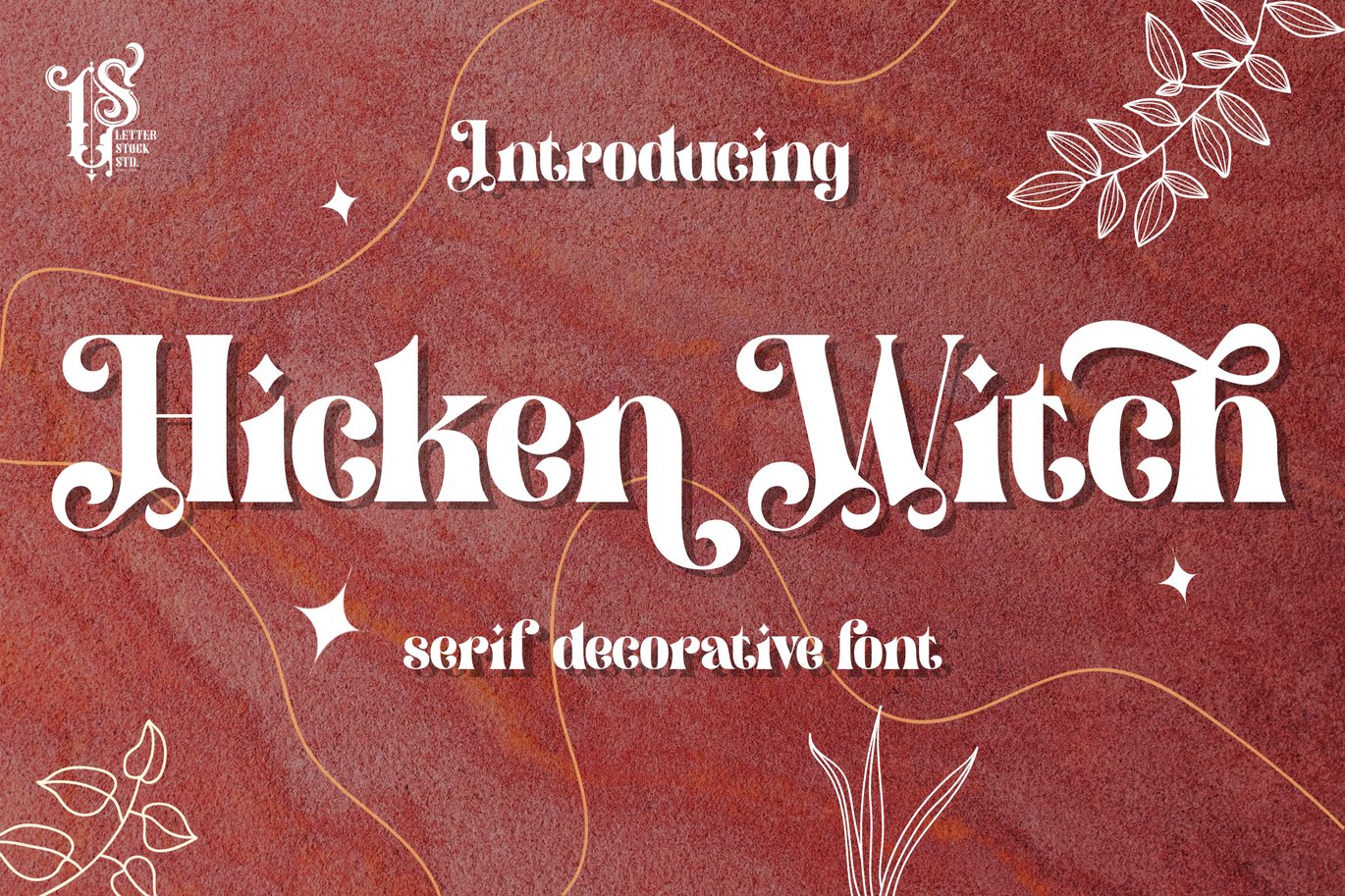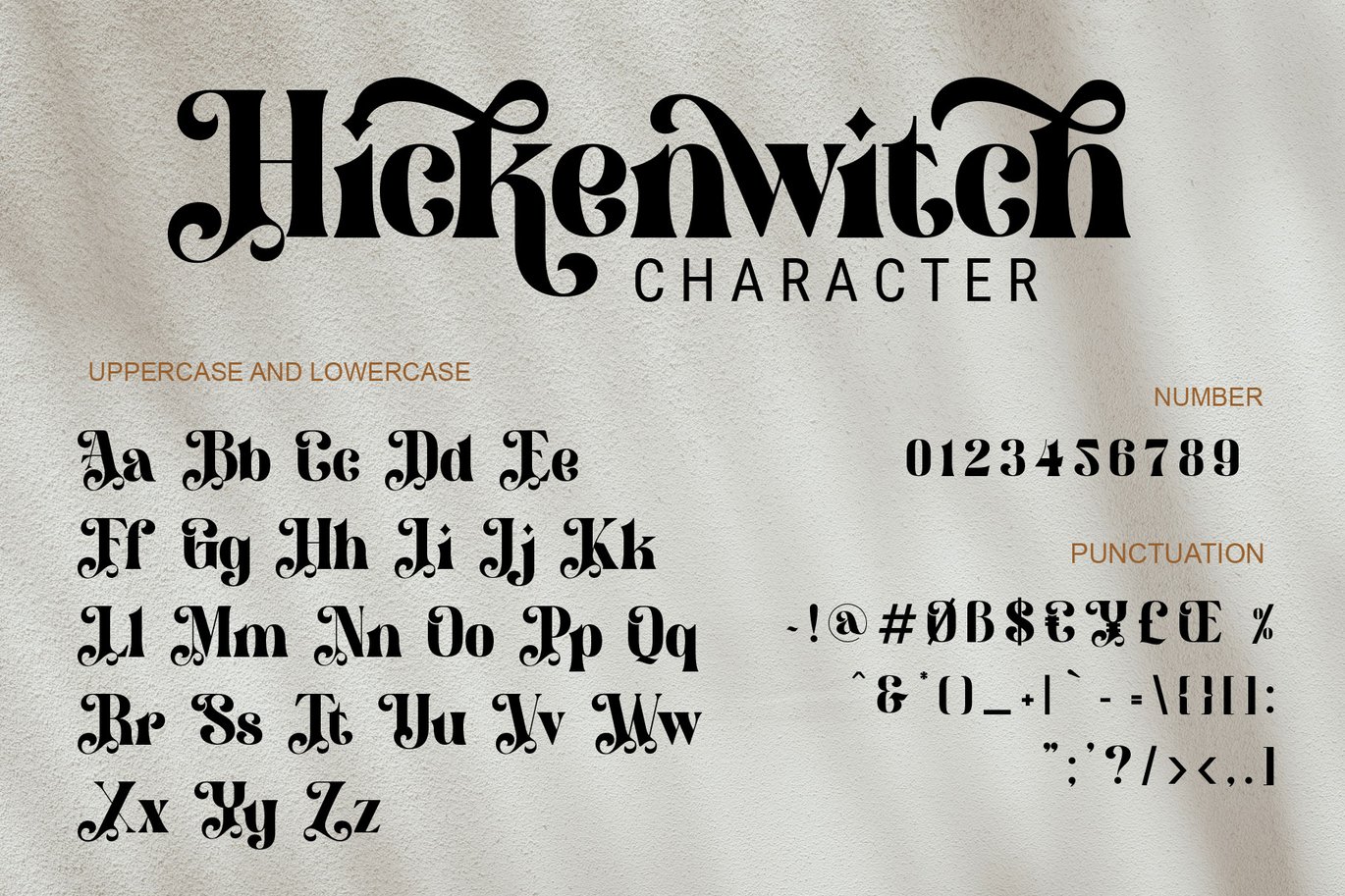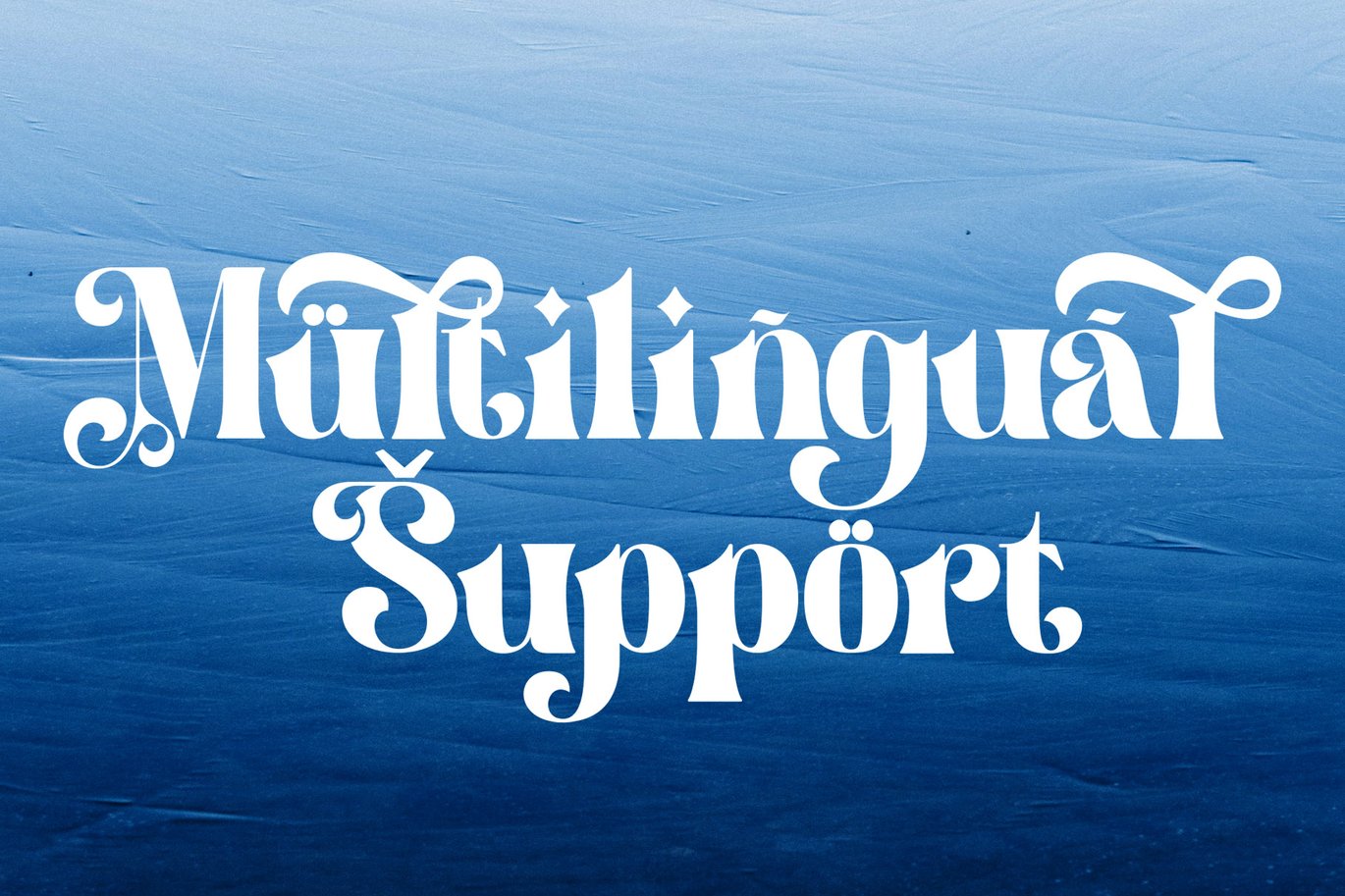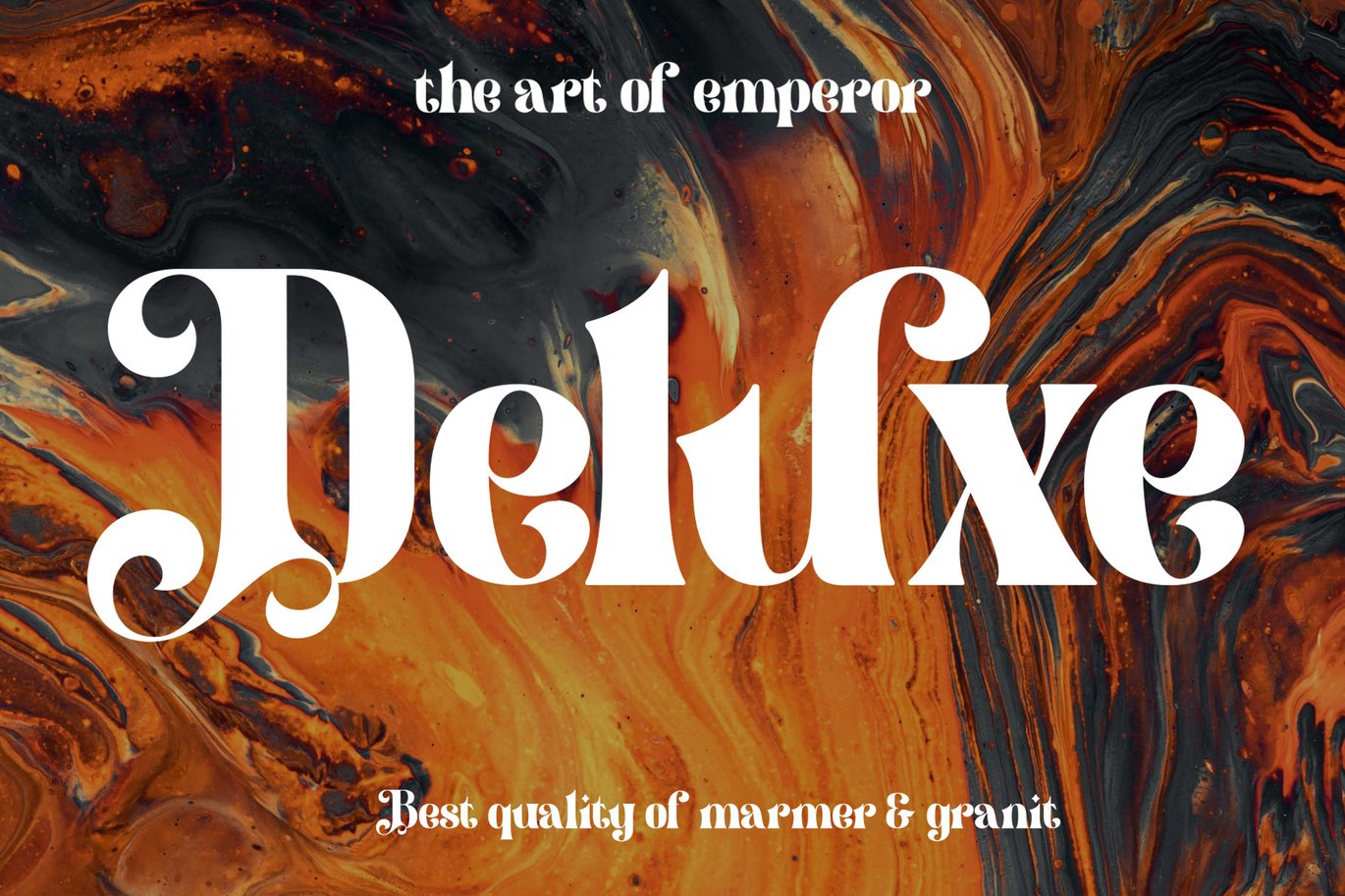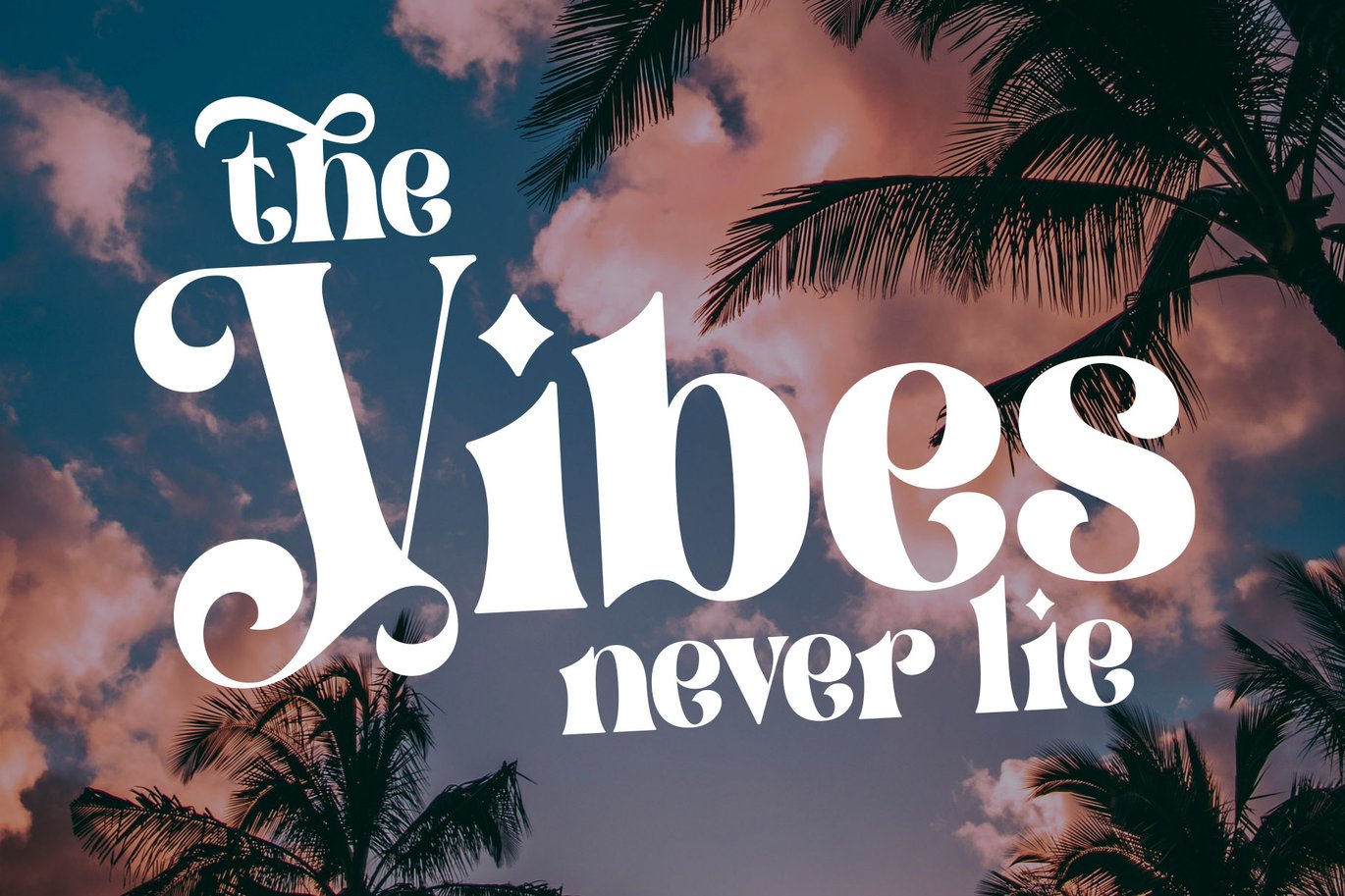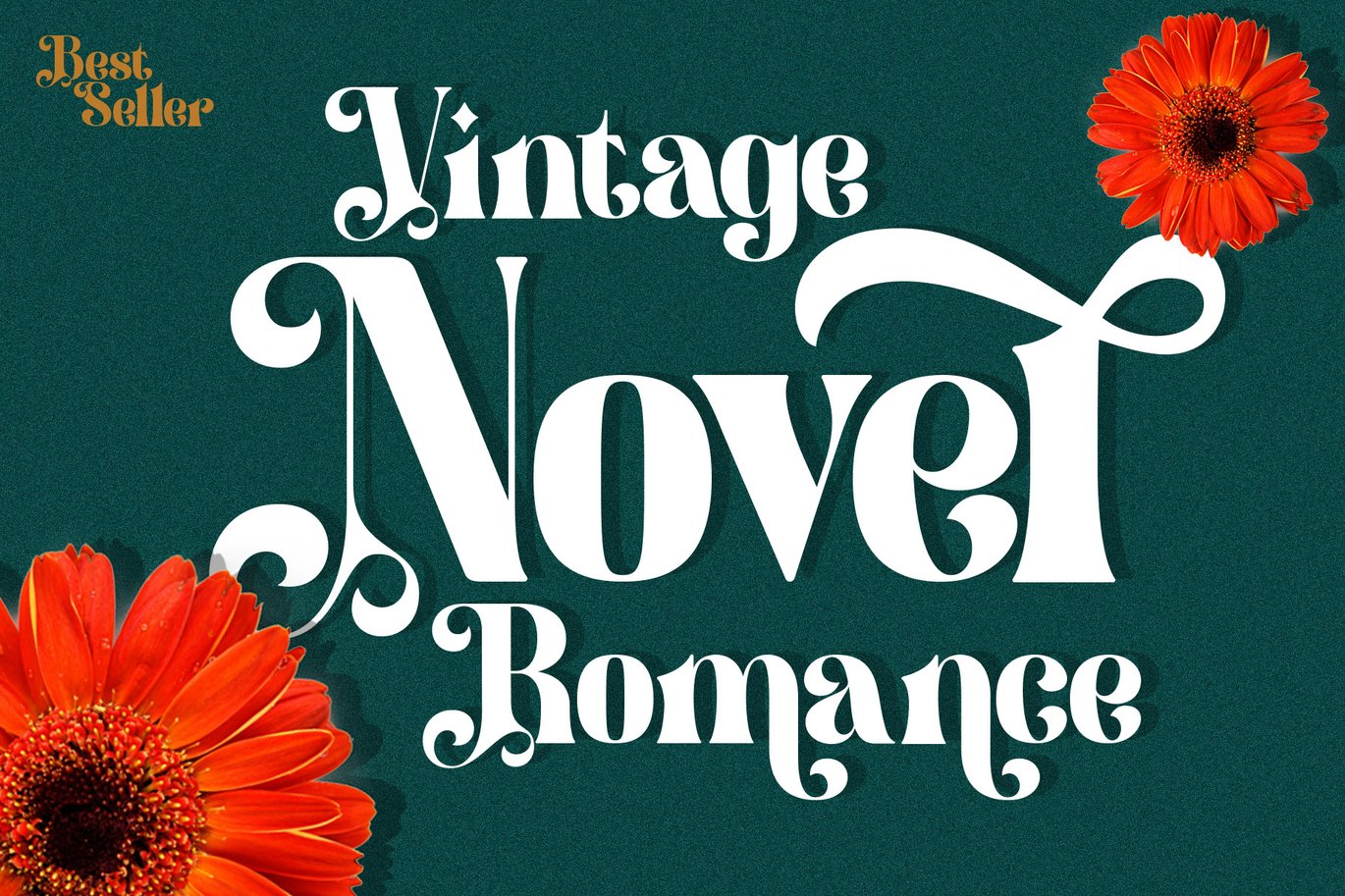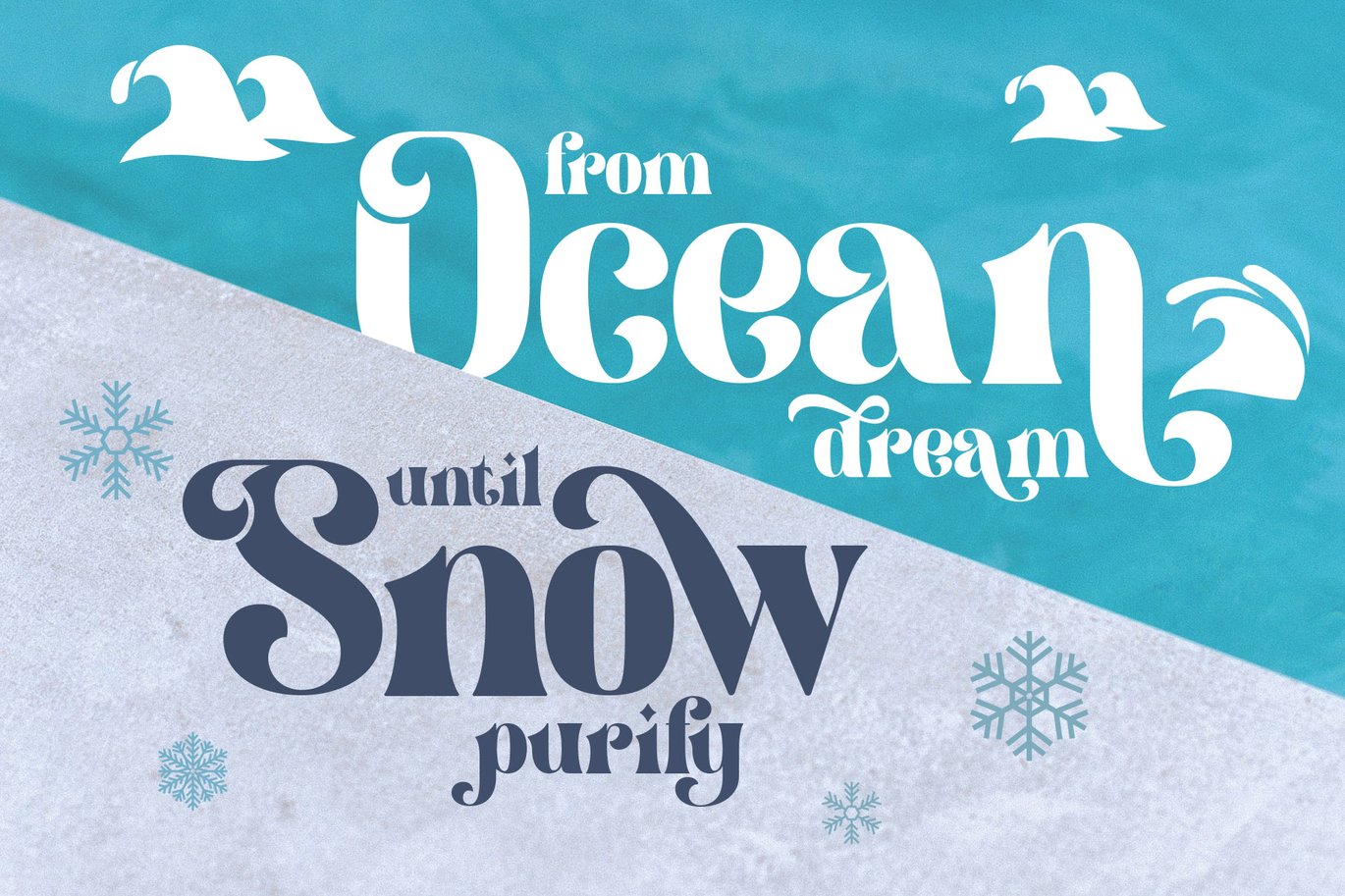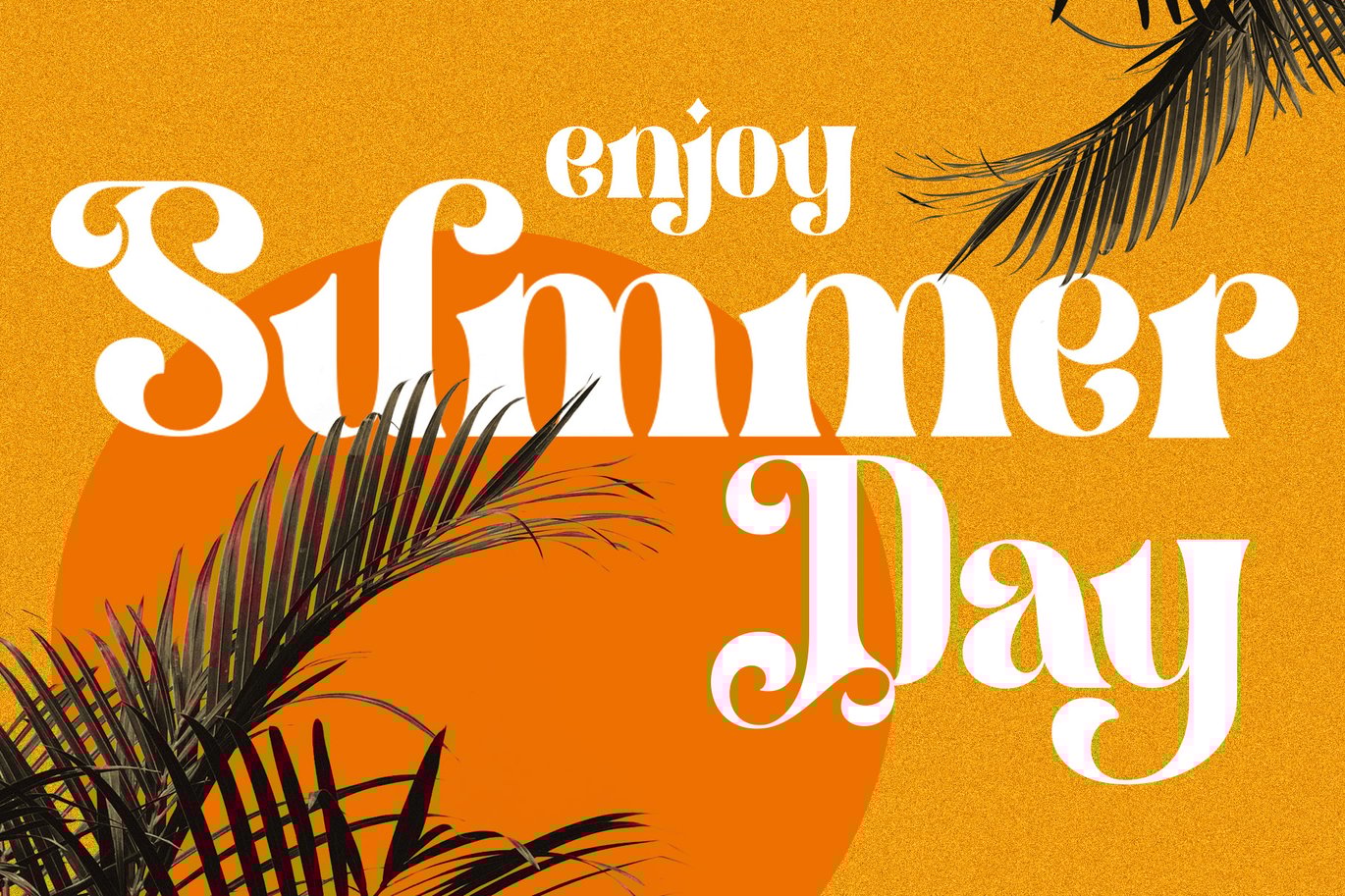
Hicken Witch – Decorative Font
Hicken Witch
This pair was inspired by poster design that i saw on street, It was crafted by hand specially to add natural handmade feeling in its brand identity than i make it clean with pentool.
If you need a decorative serif font style, Hicken Witch font is great choice for you to make your design looks better and unique.
Opentype features
Hicken Witch font has 209 character set included
Hicken Witch Font is very good looking in logo, movie poster design, youtube thumbnail, labels, product packaging, invitations, advertising and others.
This decorative serif fonts works with folowing languages:
Afrikaans, Albanian, Asu, Basque, Bemba, Bena, Chiga, Cornish, Danish, English, Estonian, Filipino, Finnish, French, Friulian, Galician, German, Gusii, Indonesian, Irish, Italian, Kabuverdianu, Kalenjin, Kinyarwanda, Low German, Luo, Luxembourgish, Luyia, Machame, Makhuwa-Meetto, Makonde, Malagasy, Malay, Manx, Morisyen, North Ndebele, Norwegian Bokmål, Norwegian Nynorsk, Nyankole, Oromo, Portuguese, Romansh, Rombo, Rundi, Rwa, Samburu, Sango, Sangu, Scottish Gaelic, Sena, Shambala, Shona, Soga, Somali, Spanish, Swahili, Swedish, Swiss German, Taita, Teso, Vunjo, Zulu